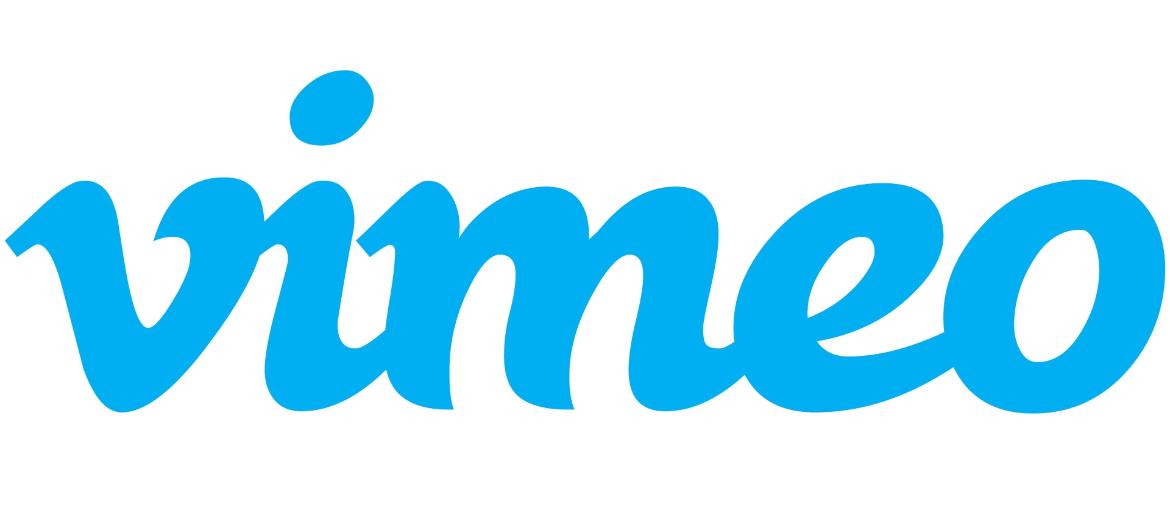
Vimeo Font
What Font is Vimeo?
The Vimeo Font is Black Rose, the typeface used in Vimeo’s logo and branding. It is a smooth, flowing script font with elegant curves, connected letterforms, and a handwritten feel, giving the Vimeo wordmark a creative, friendly, and artistic personality. The playful yet polished style reflects Vimeo’s focus on filmmaking, creativity, and high-quality visual storytelling.
Vimeo’s visual identity reflects its artistic roots. The flowing, handwritten-style logo typography helps communicate a sense of creativity, individuality, and craftsmanship, reinforcing Vimeo’s reputation as a home for creative video professionals.